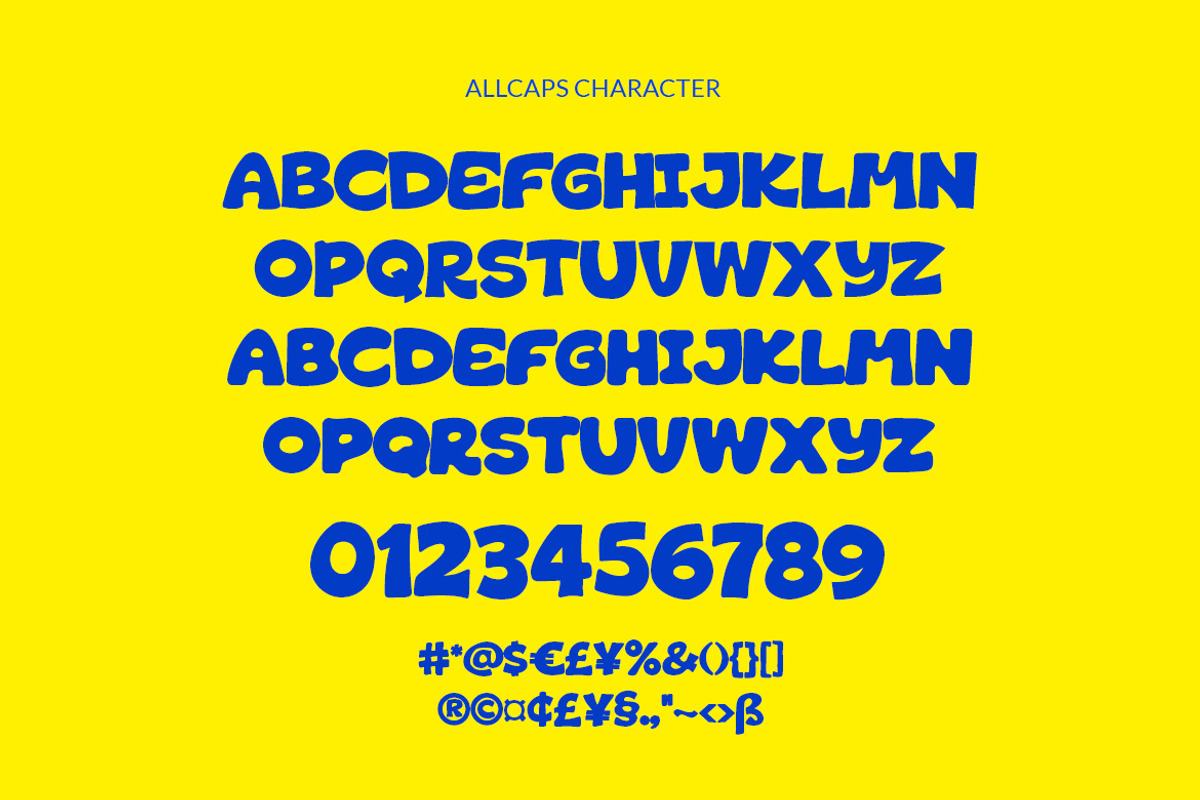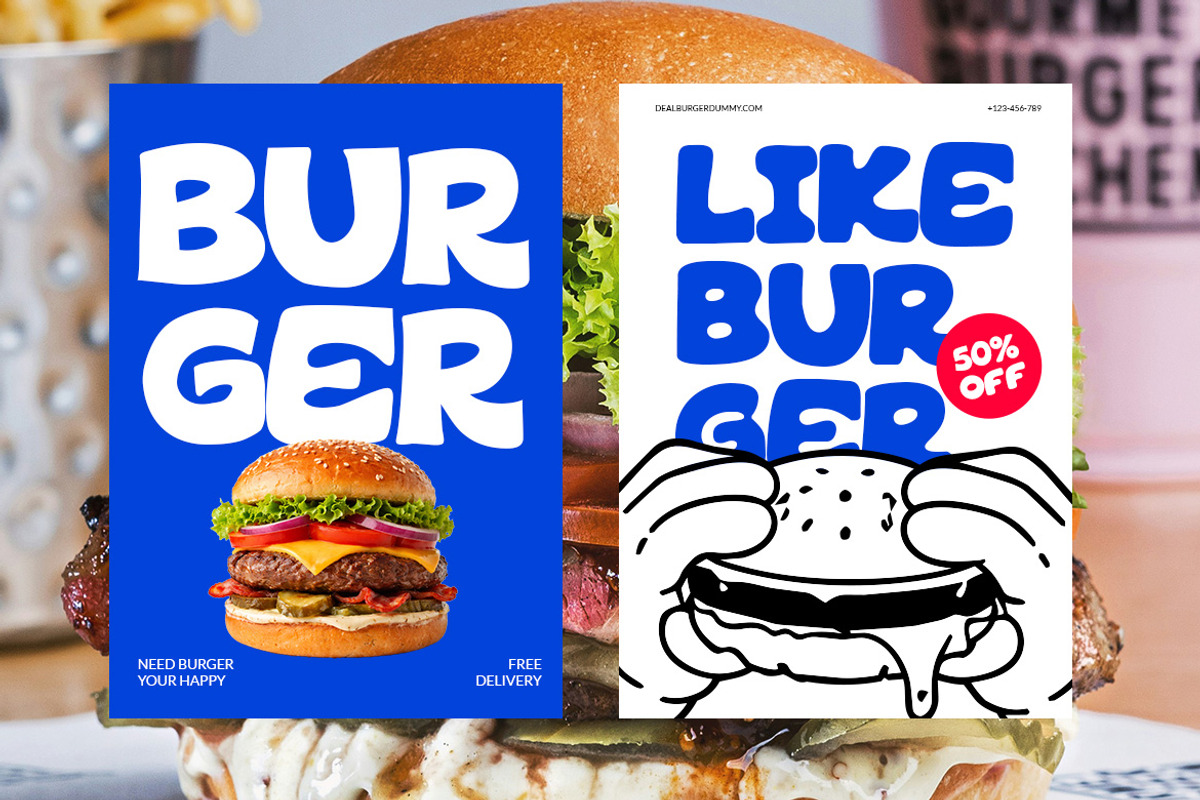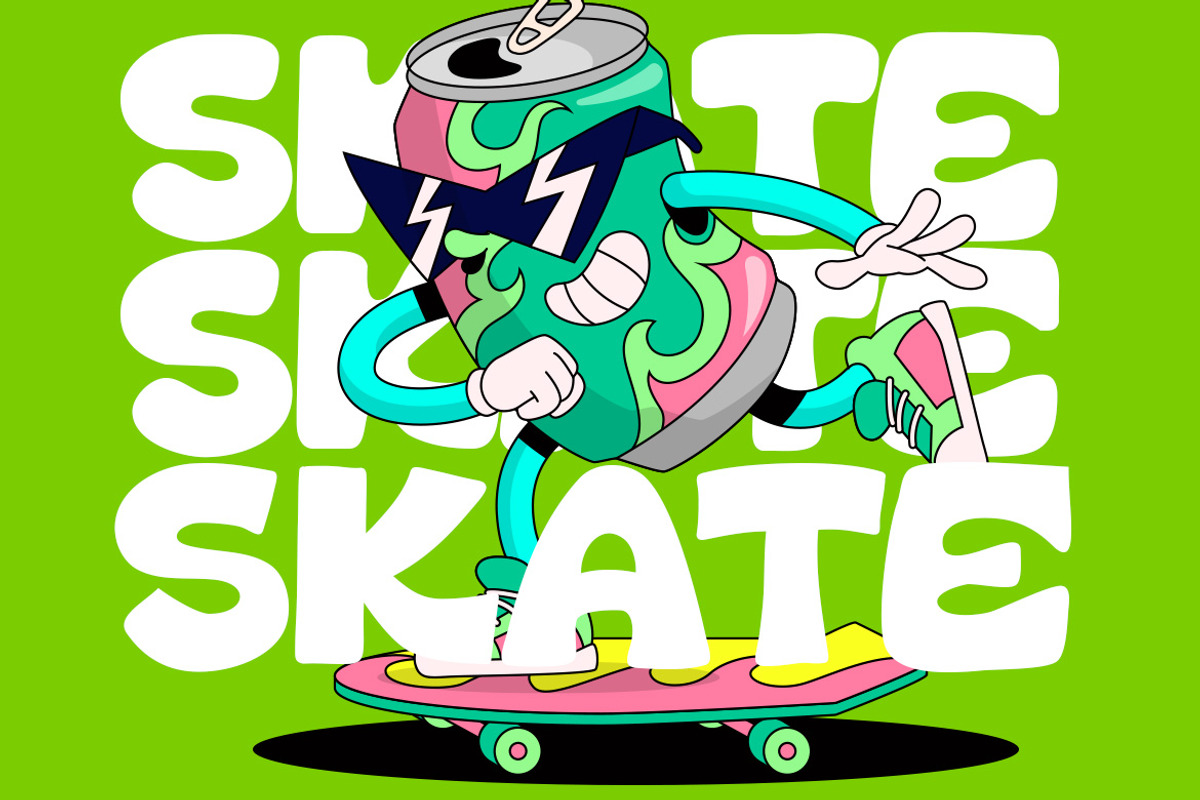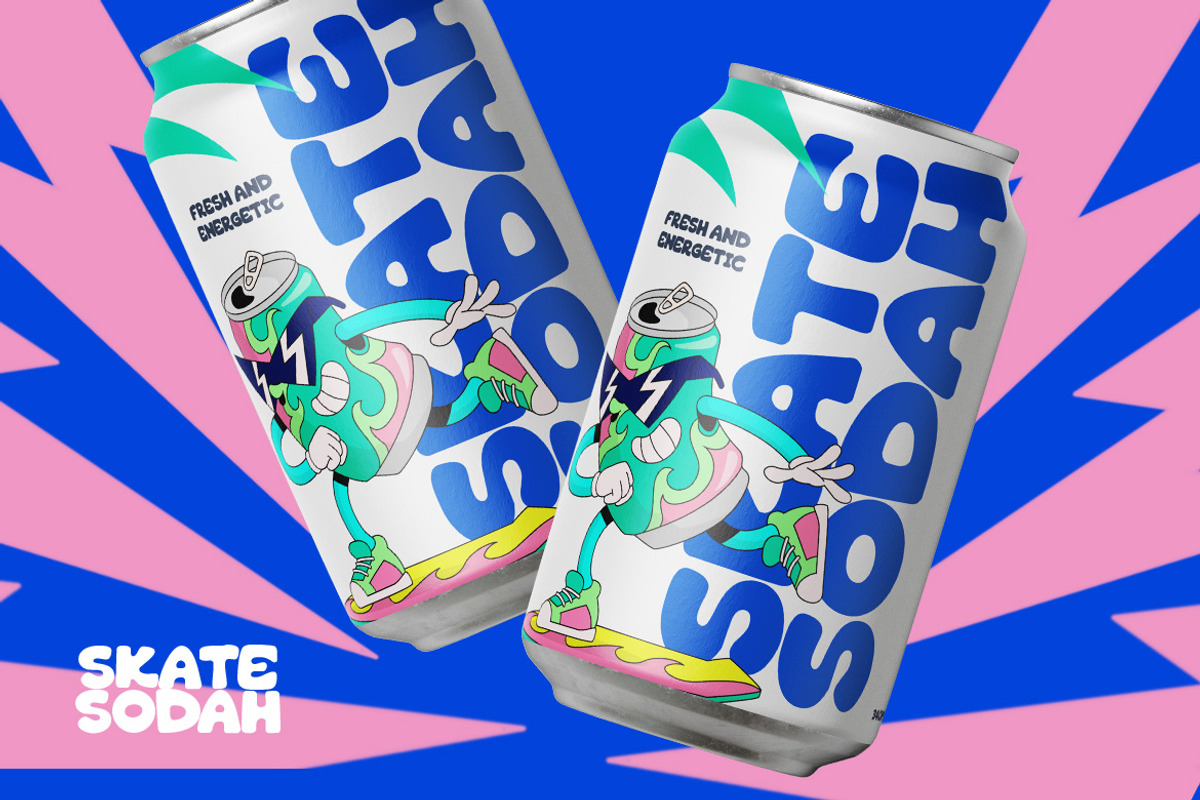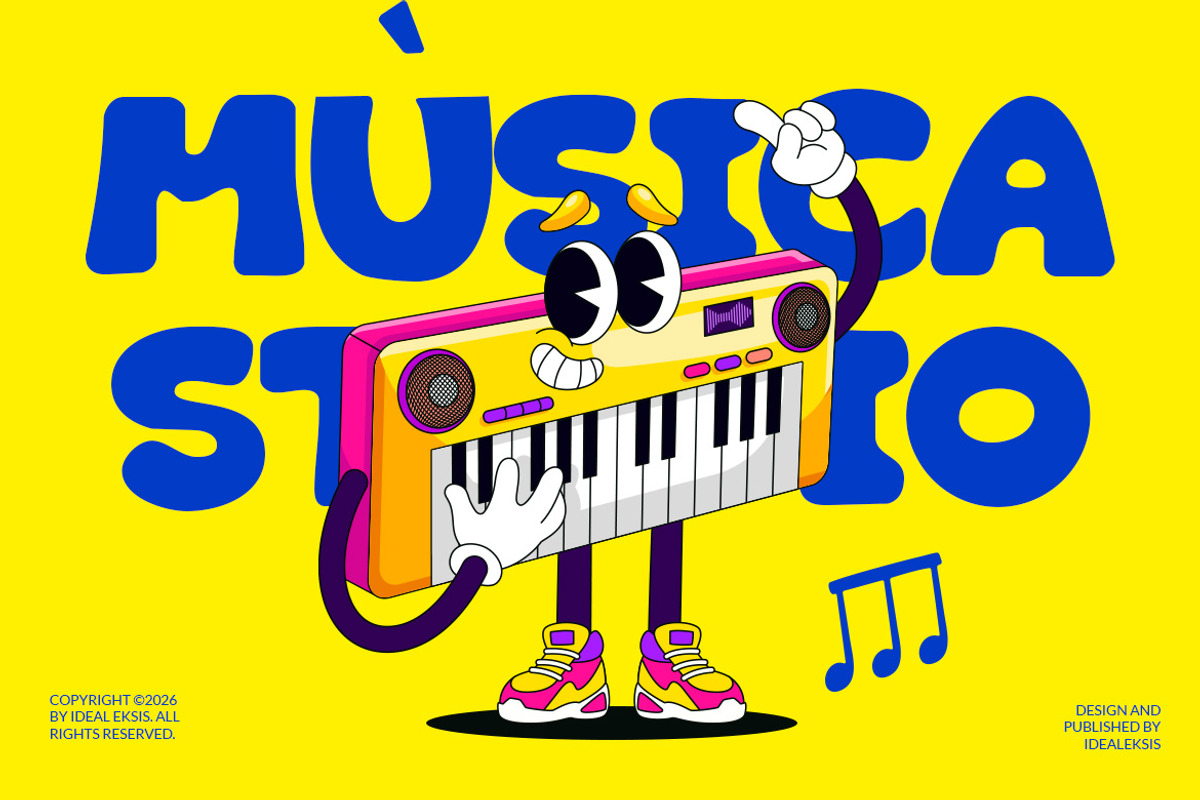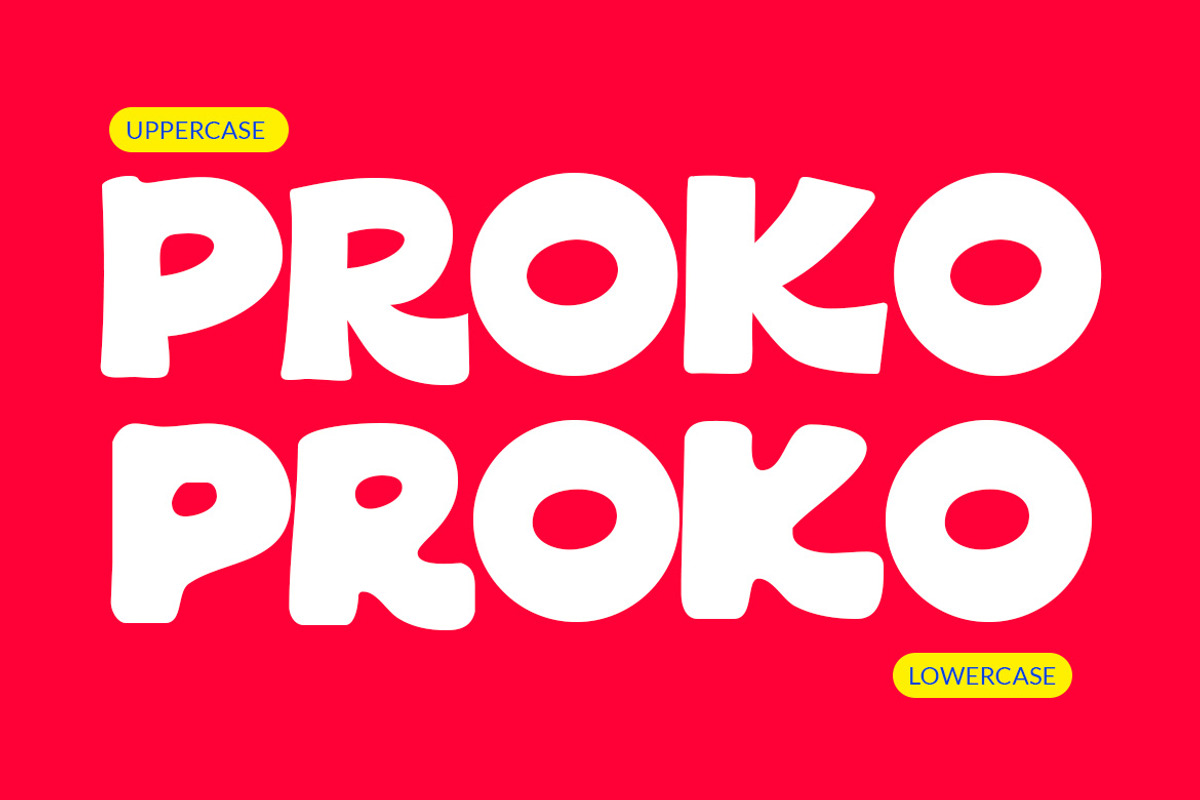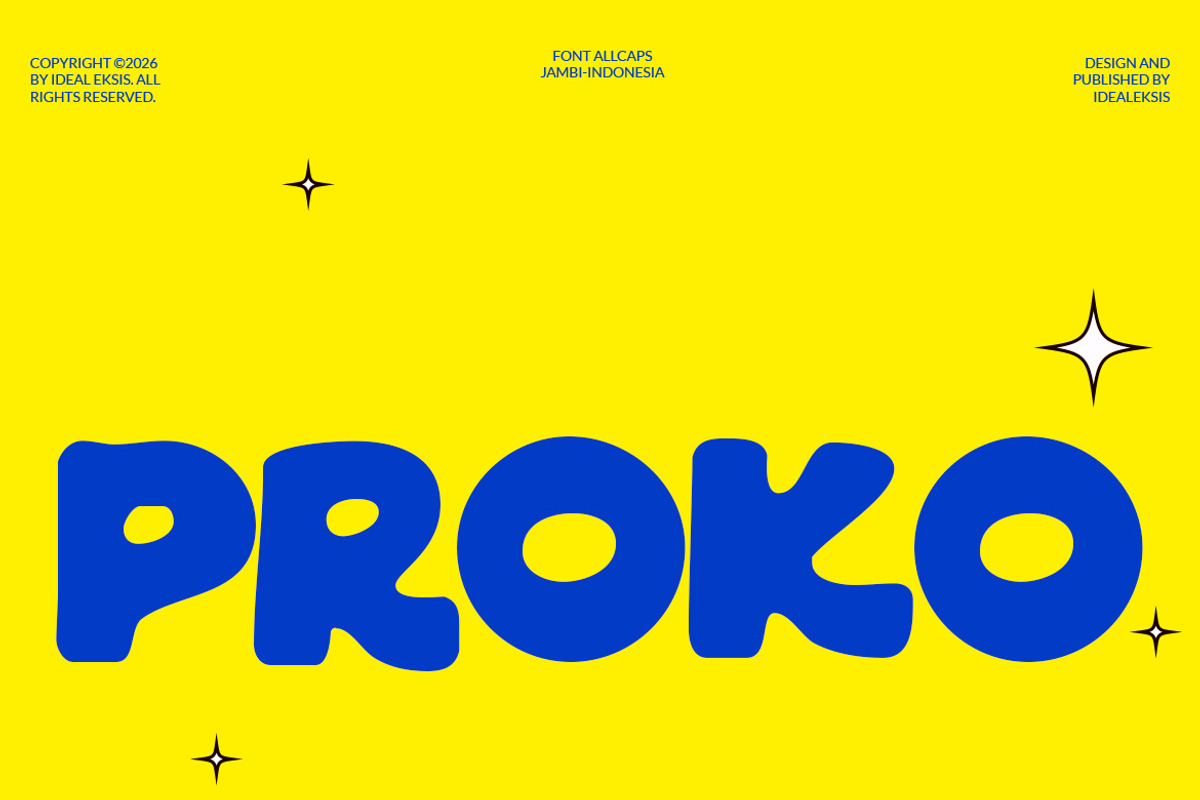
Proko - Typeface
The typeface exhibits an ultra-bold weight with a heavy, rounded construction that borders on a liquid or bubble-like aesthetic.
Allcaps
Perfect for
Bakery and café branding
Food and beverage logos
Restaurant menus and signage
Coffee shop and donut shop designs
Food packaging and labels
Social media food promotions
Kitchen-themed posters and prints
Culinary blogs and recipe graphics